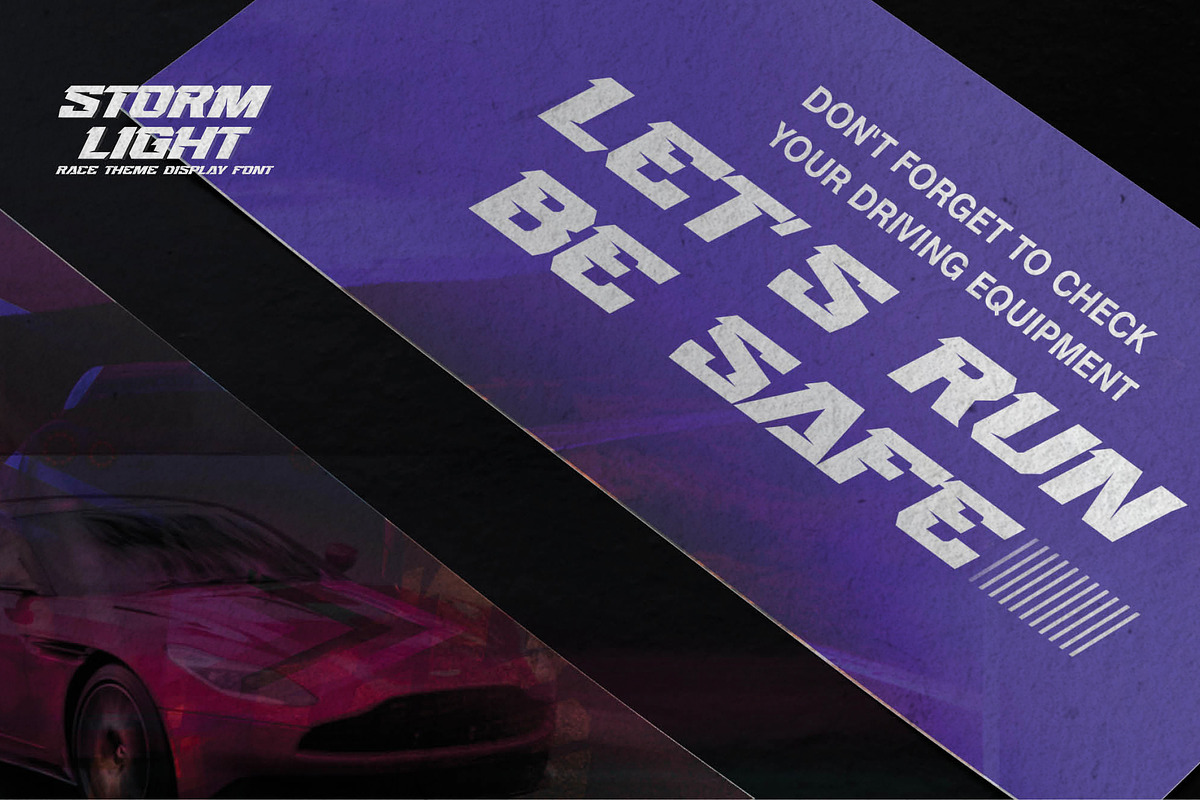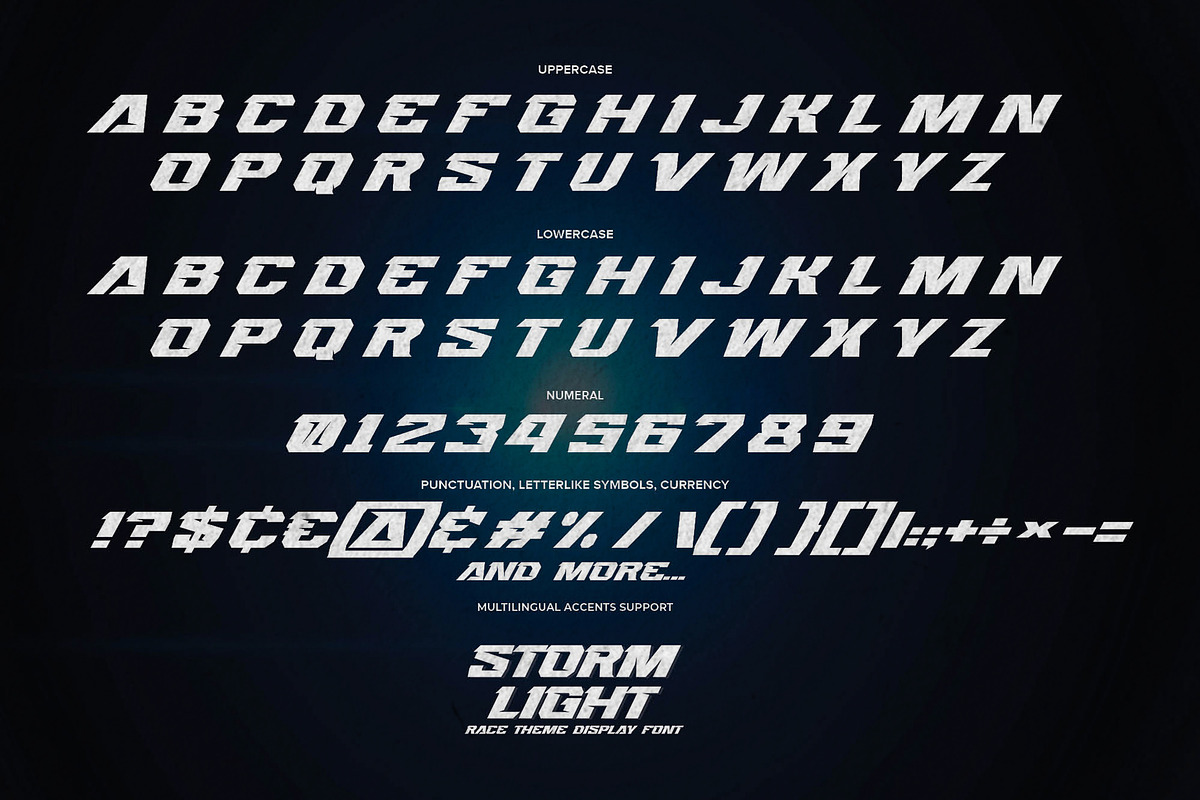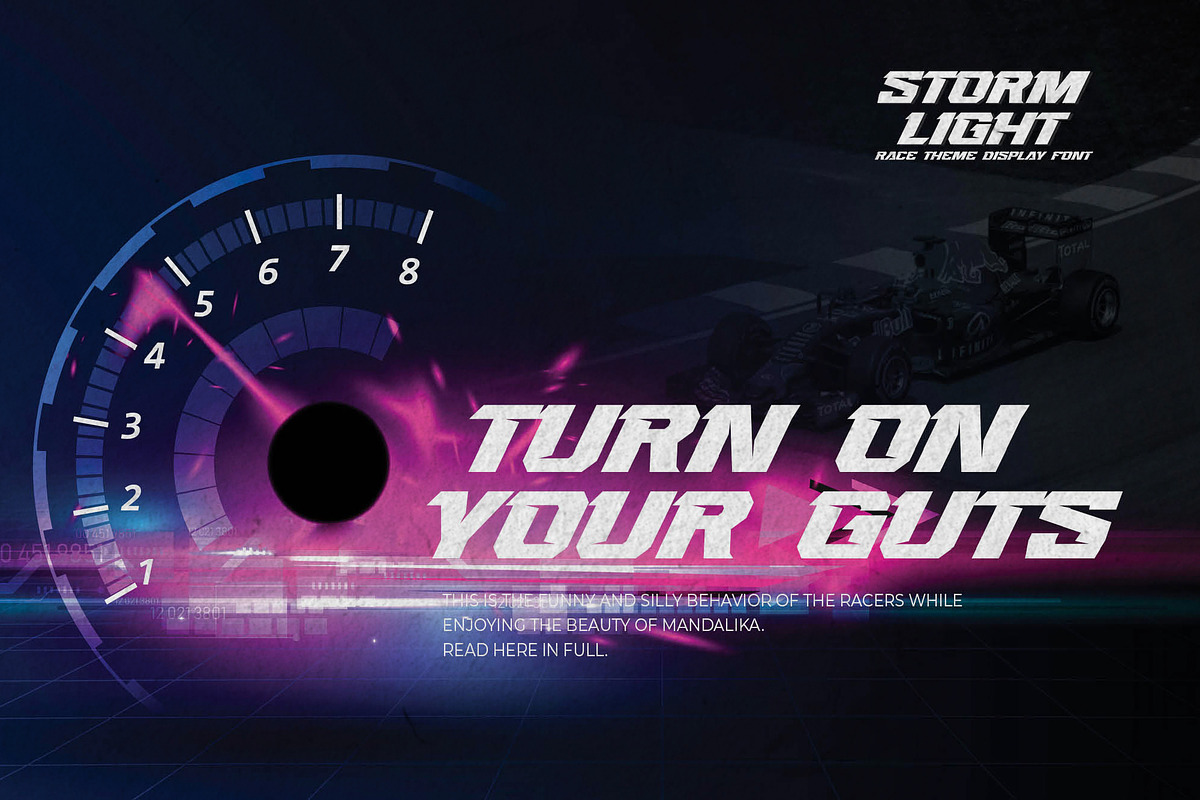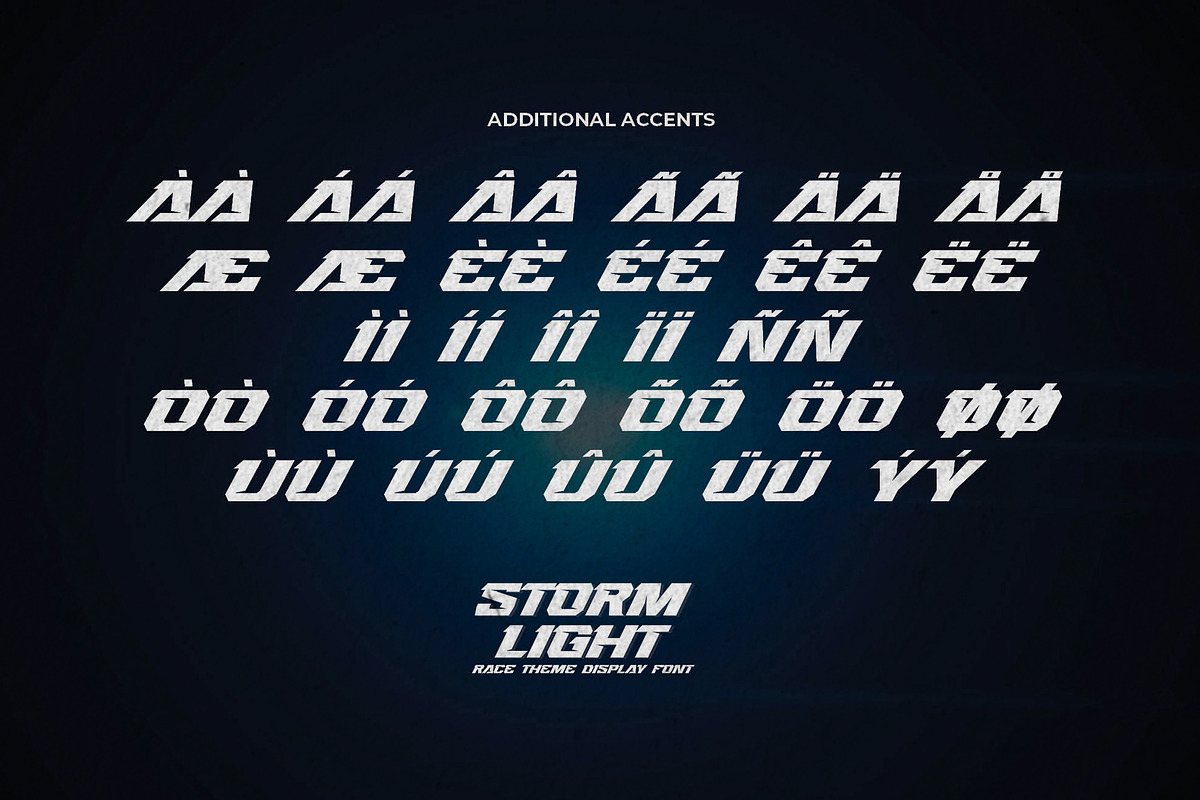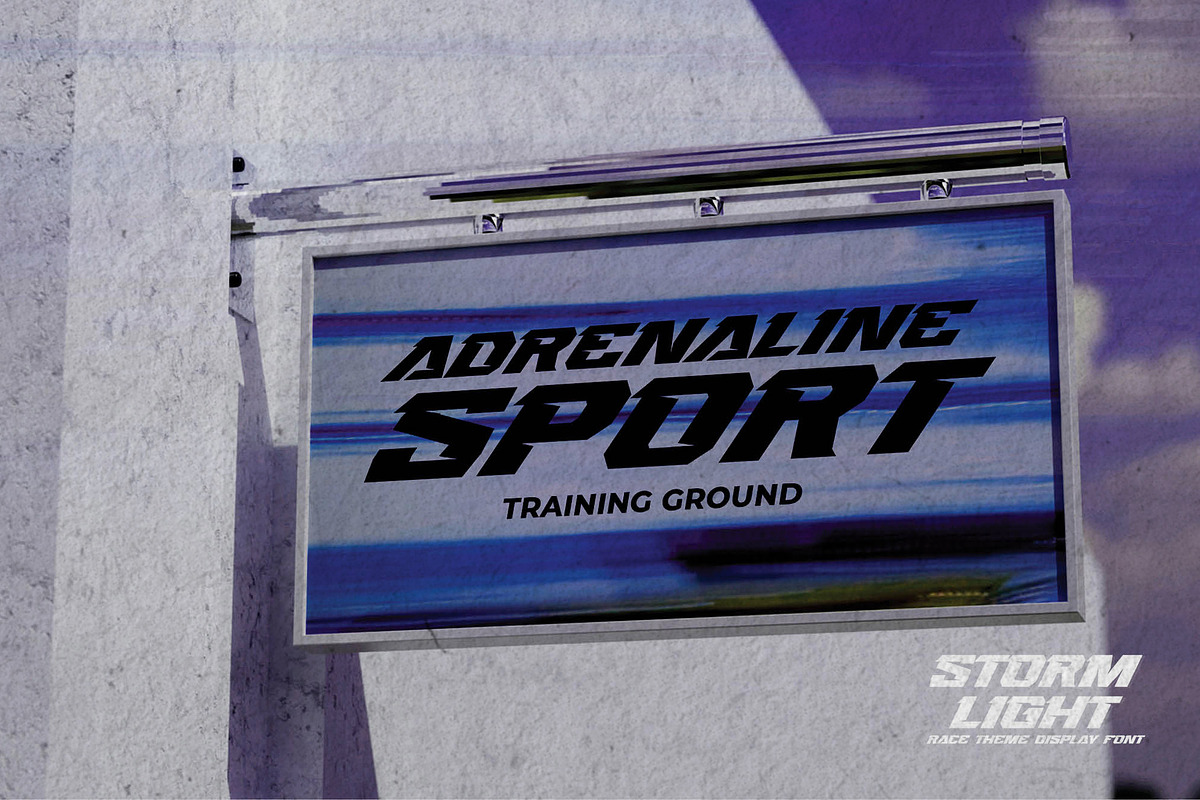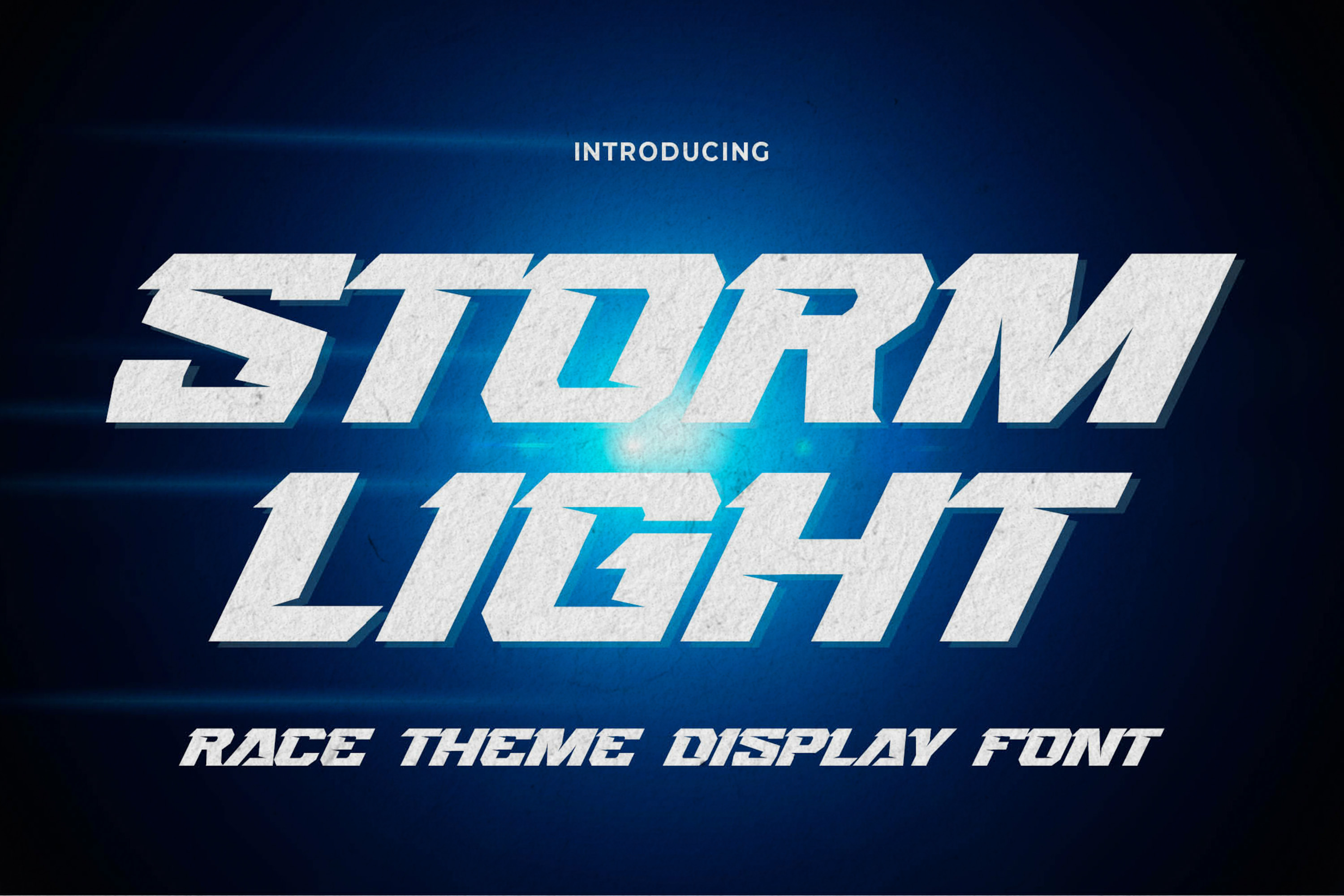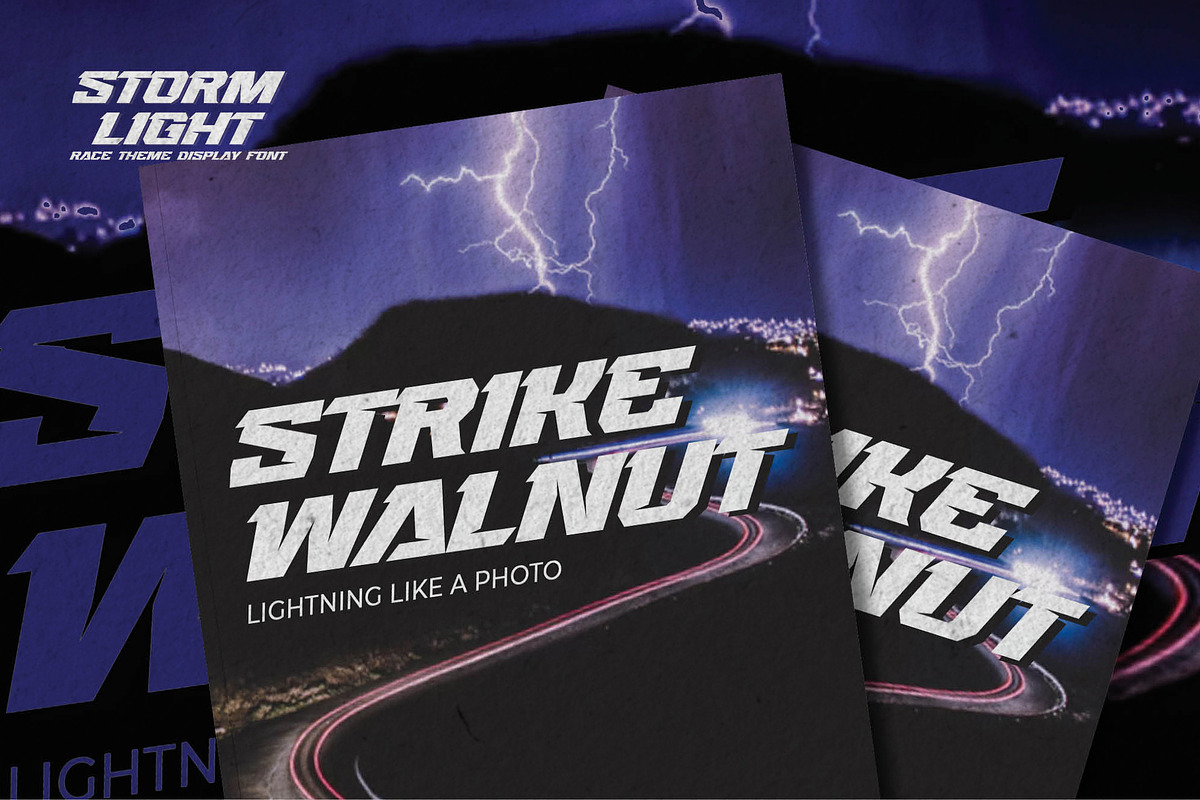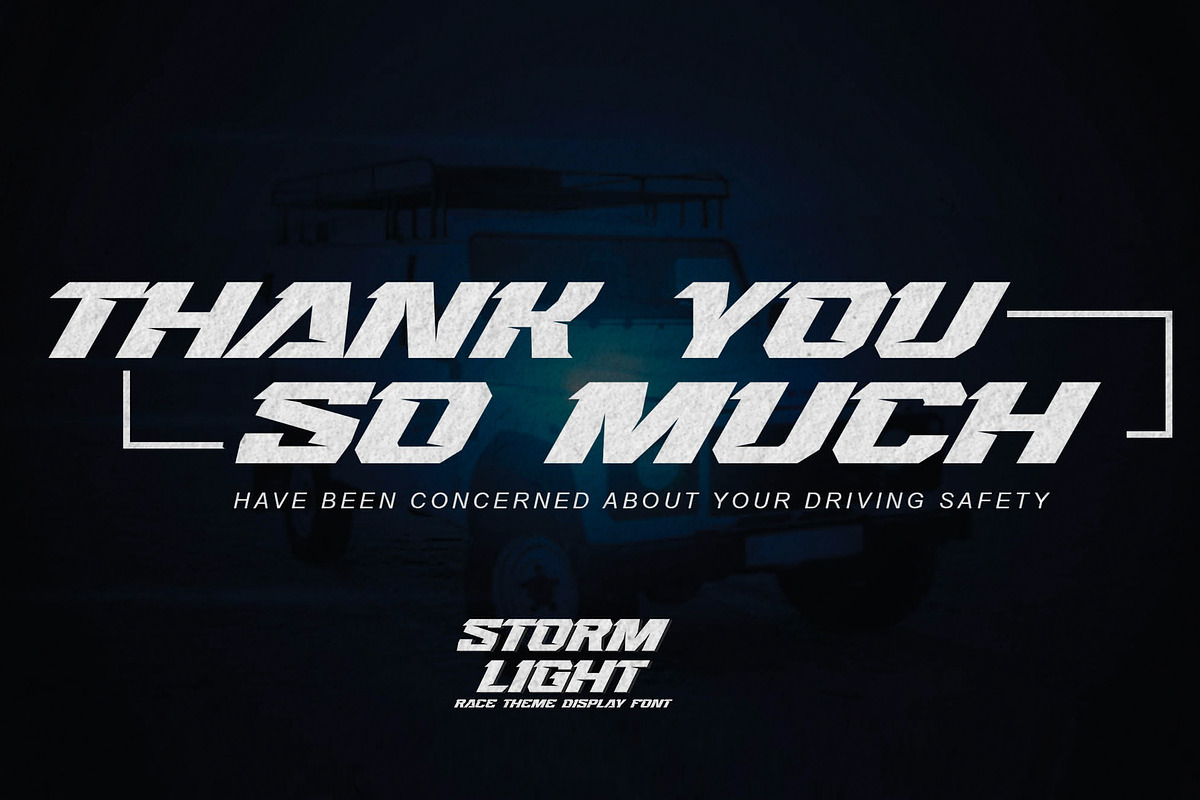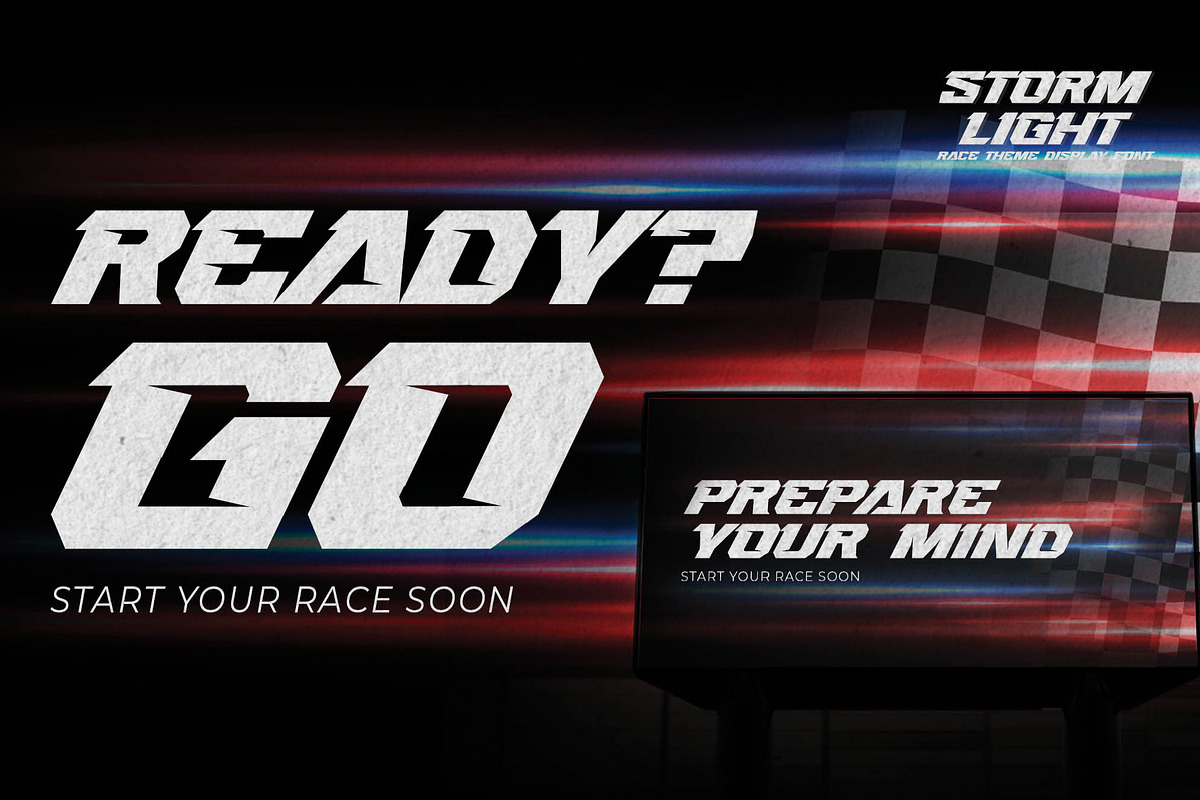
STORMLIGHT - Race Theme Display Font
Here comes a New Font,Introducing STORMLIGHT is a Race Theme Display Font.This Handmade Display Font with a stylish touch inspired by the famous minimalist logo.
STORMLIGHT has is perfect for the purposes of designing templates, brochures, videos, advertising branding, logos and more. That is Sport Display with strong and Sport nuances.This font is great for your next creative project such as logos, printed quotes, invitations, cards, product packaging, headers, Logotype, Letterhead, Poster, Label, and etc. Crafted manually with love and passion. This handmade font will make your design has a beautiful natural touch for each details. It is perfect for any design project as Invitation, book cover, craft or any design purposes.